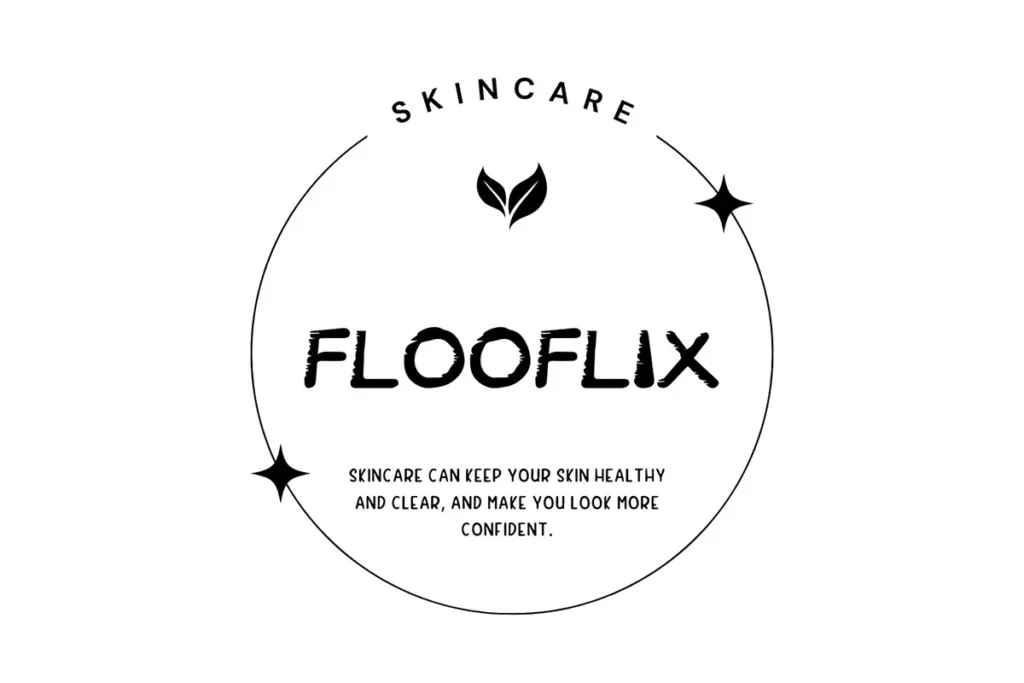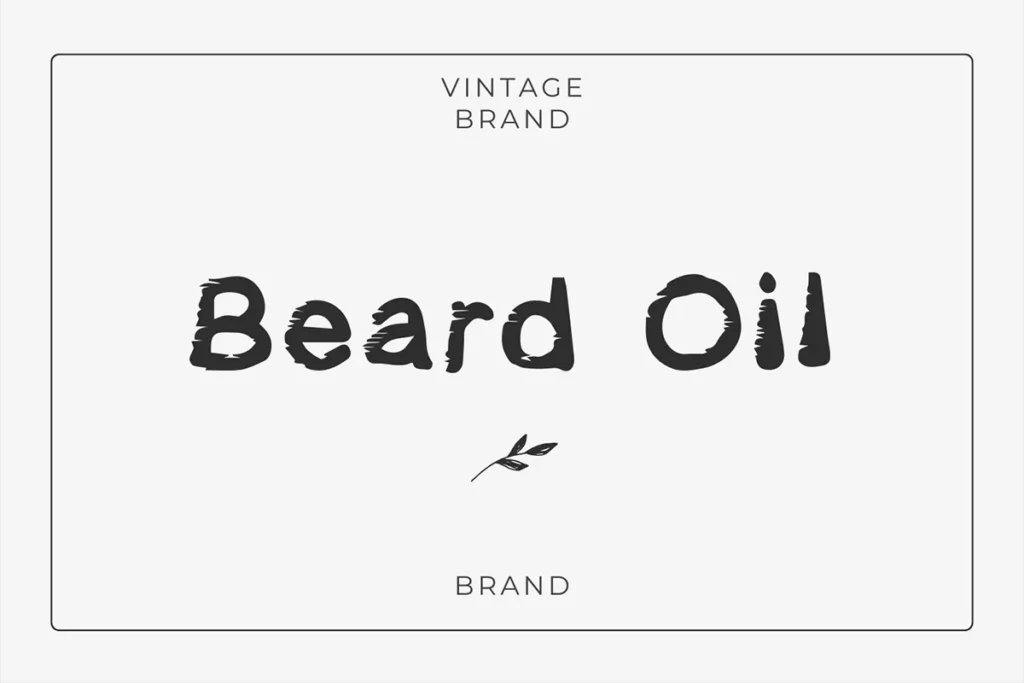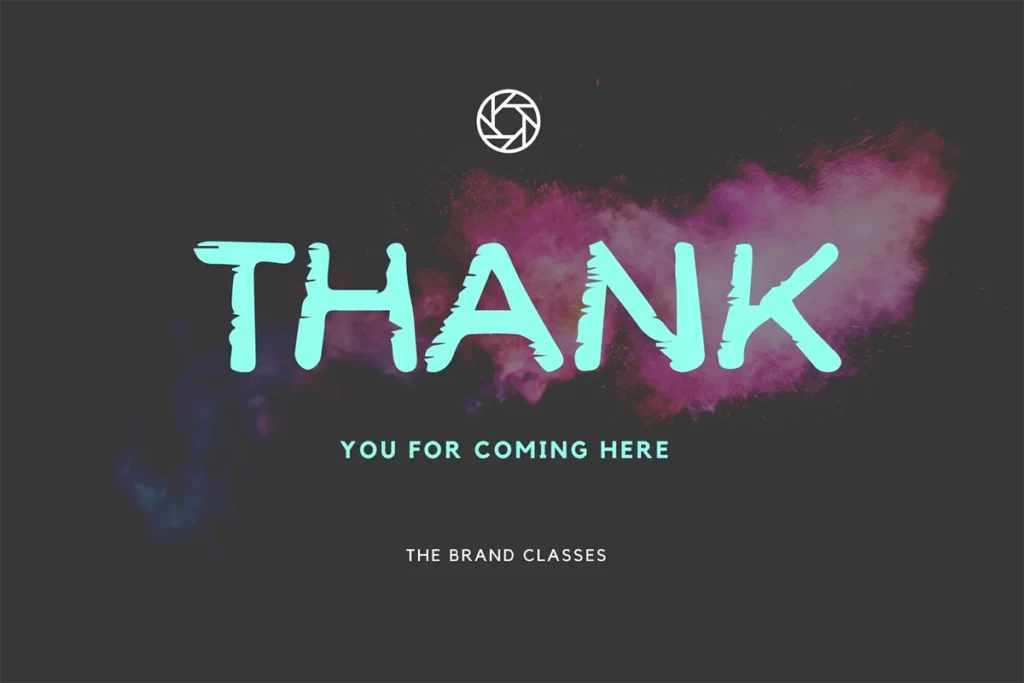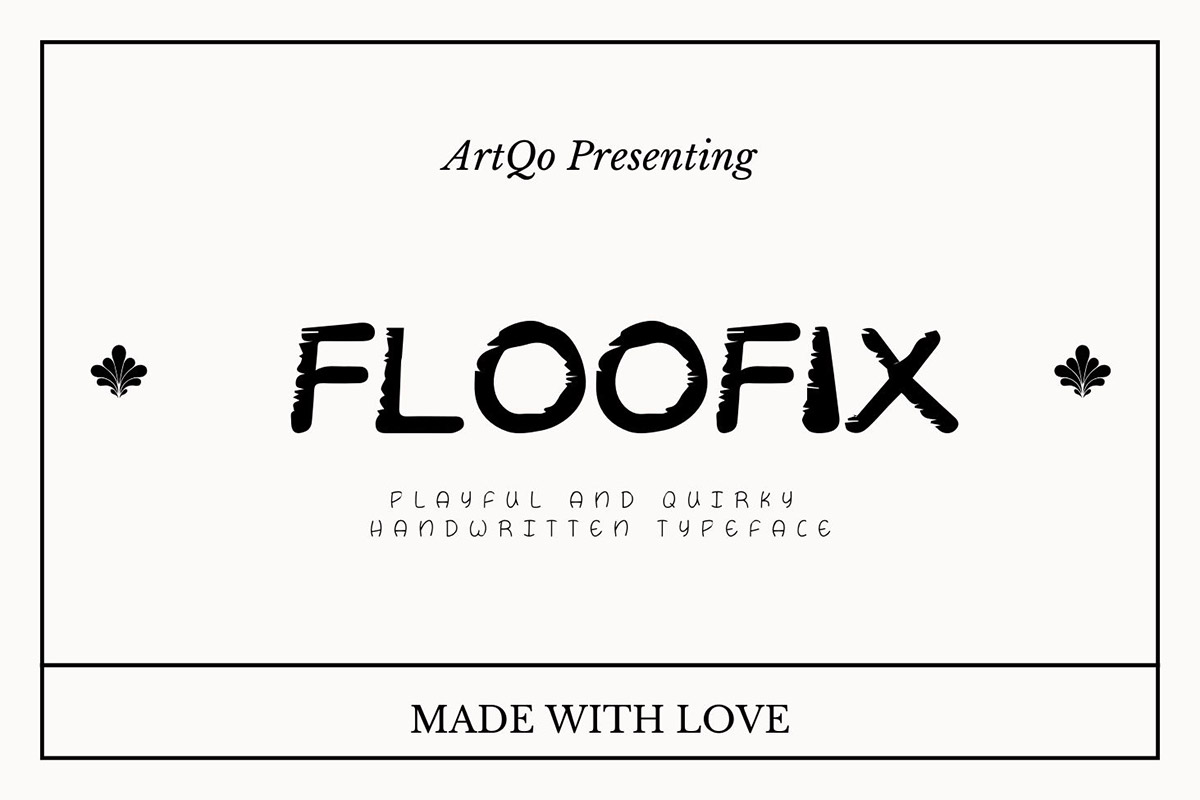
Floofix Font – Playful and Quirky Handwritten Typeface
Floofix Font is a playful and whimsical typeface that adds a touch of charm to any design. With its quirky, hand-drawn style, Floofix brings a unique character to your creative projects, making it perfect for a wide variety of uses, from casual branding to eye-catching headlines.
The uneven strokes and textured finish of Floofix give it an organic, human feel that makes it stand out. It’s both bold and friendly, making it great for kids’ materials, social media graphics, posters, and anything that needs a fun, approachable vibe.
Key Features:
- Playful Handwritten Style: Each letter feels like it’s been crafted by hand, adding a personal touch to your text.
- Bold & Quirky: With its thick strokes and uneven edges, Floofix is designed to grab attention and bring a fun, creative energy to your designs.
- Versatile: Whether you’re designing for a brand, social media, or personal use, Floofix works well in a variety of contexts.
- Uppercase & Lowercase Letters: Floofix comes with a full set of uppercase and lowercase letters, ensuring flexibility in your designs.
- Numbers & Punctuation: Includes numbers and punctuation to cover all your basic design needs.
Perfect For:
- Kids’ projects
- Social media posts
- Branding and logos
- Creative posters
- Invitations and greeting cards
- Merchandise and apparel designs
- Websites and blogs
Why Choose Floofix Font ?
Floofix Font gives your design a distinct, friendly personality. It’s perfect for anyone looking to make their text pop with a quirky, handmade feel that brings joy and creativity into every project. Whether you’re working on a fun campaign or simply want to make a bold, yet friendly, statement, Floofix is the go-to font to add that extra flair.